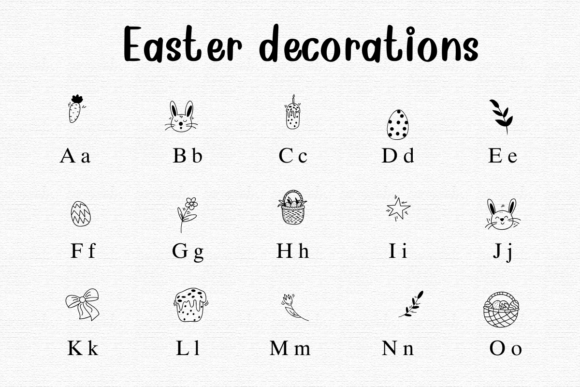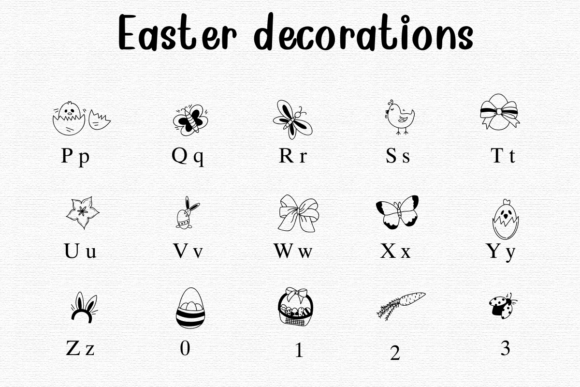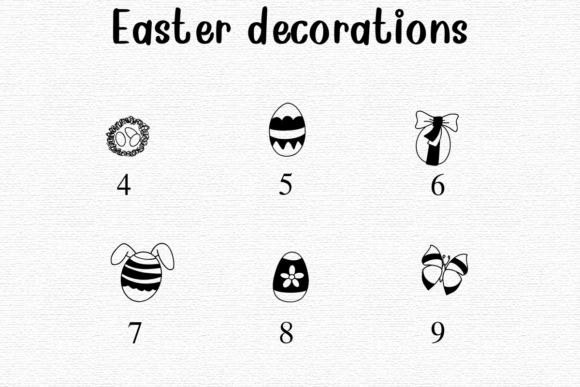
Introduction to Easter Decorations Font
As I sat in my cozy home office, surrounded by scraps of paper and half-finished crafts, I stumbled upon a treasure trove of design resources. I had been searching for the perfect font to add a touch of springtime magic to my upcoming wedding invitations, and that’s when I found it – the Easter Decorations Font.
This delightful dingbat font is more than just a pretty face; it’s a valuable design resource for creatives like you and me. With its high-quality graphics and transparent background, it’s the perfect addition to any project, from DIY crafts to logos and beyond. Whether you’re a seasoned designer or a crafty hobbyist, the Easter Decorations Font is sure to bring a smile to your face and a touch of whimsy to your work.
Easter Decorations Font
- High-quality, intricately designed font perfect for creative projects
- Comes with a transparent background, ideal for overlaying on images or designs
- Includes a range of Easter-themed designs, from eggs to bunnies
- Designed with a high resolution (300 DPI) for optimal print quality
- Perfect design resource for crafting invitations, cards, and other Easter-themed materials
Honest Review: Easter Decorations Font
I recently came across the Easter Decorations Font, a free download perfect for any creative project. At first glance, I was impressed by the font’s high quality and the sheer number of unique characters included.
- ✨ Works well for adding a playful touch to Easter-themed designs
- ✨ Great for creating transparent background designs, allowing for a seamless integration with other elements
- ✨ Perfect for designers looking for a free design resource that still offers a lot of character
However, I did encounter a few limitations with the font.
- ⚠️ Limited font styles, which may not be ideal for designers looking for a lot of variation
- ⚠️ Some characters may appear a bit pixelated, which could be a problem for high-resolution designs
Overall, the Easter Decorations Font is a solid choice for designers working on Easter-themed projects. While it has its limitations, it’s a great free download that can add a lot of personality to your designs. I’d definitely recommend it to anyone looking for a fun and playful font.
Easter Decorations Font
To get the most out of the Easter Decorations Font, experiment with different font sizes, colors, and layering techniques. Use the font in conjunction with other design elements, such as images and graphics, to create visually appealing designs. Don’t be afraid to try new things and push the boundaries of what’s possible with the font.
The Easter Decorations Font is perfect for a variety of use cases, including Easter-themed designs, spring-inspired projects, and general holiday celebrations. Use the font to create invitations, decorations, and gifts for Easter or other special occasions.